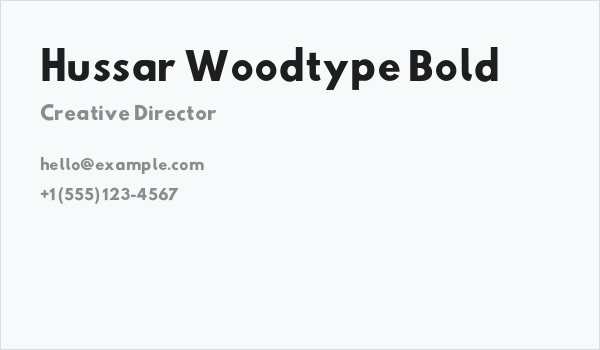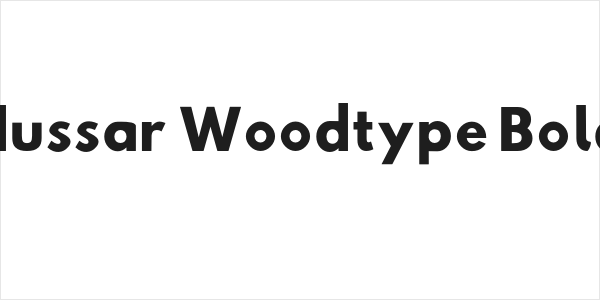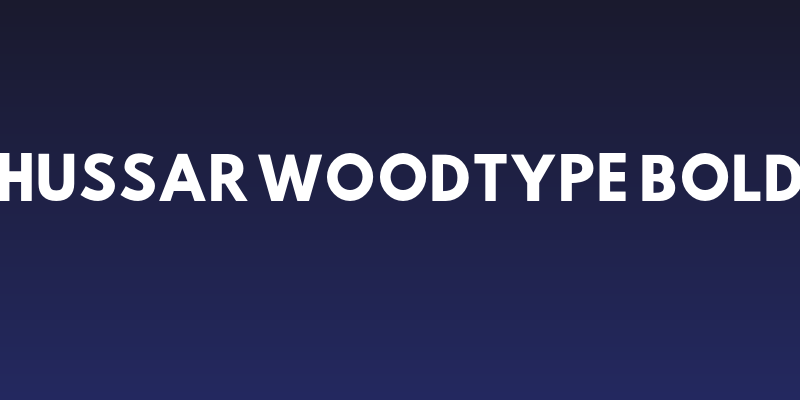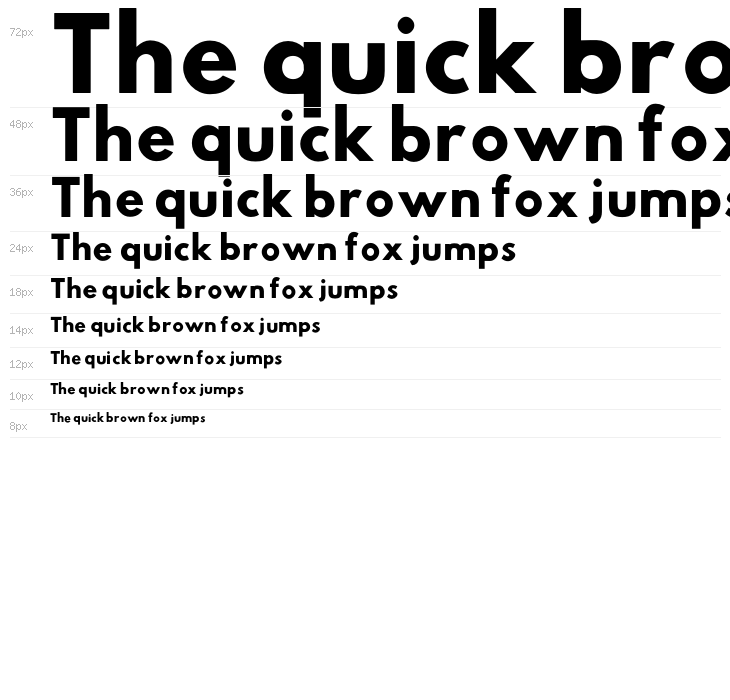
Hussar Woodtype Bold Font
Hussar Woodtype Bold Description
This font features bold, geometric letterforms with a strong presence. The uppercase letters are uniform in height, creating a cohesive and structured appearance. The lowercase letters maintain a similar weight, ensuring readability and consistency across different text sizes. The numerals are clear and distinct, matching the boldness of the alphabet characters. Special characters are well-defined, adding versatility to the font's use. Overall, the font's boldness and geometric style make it suitable for impactful and attention-grabbing designs.